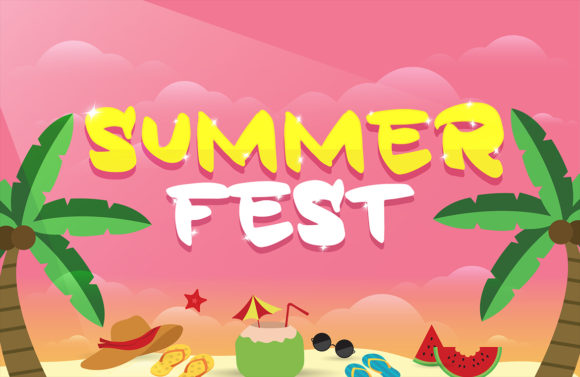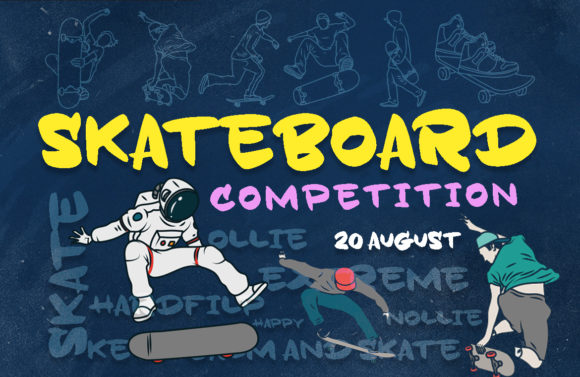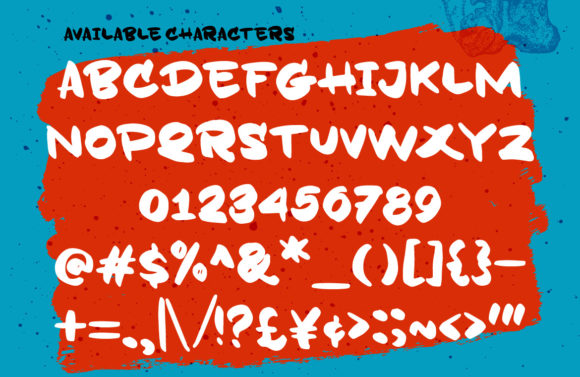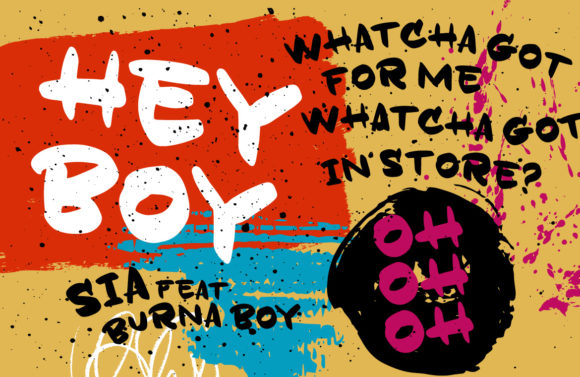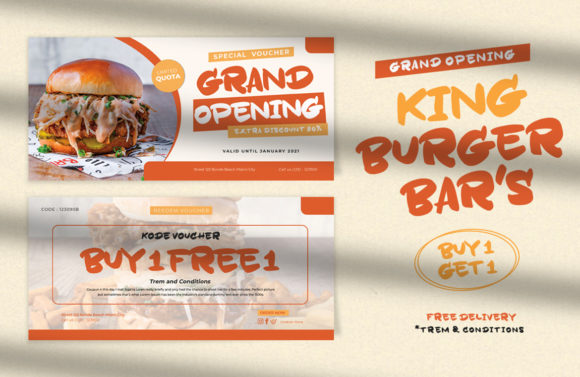
Introducing Alusion Bold Font: The Ultimate Display Font for Creative Designs
Are you tired of using the same old fonts in your designs? Do you want to add a fresh and contemporary touch to your creative projects? Look no further than Alusion Bold Font! This bouncy and quirky display font is perfect for designers and crafters who want to make their designs stand out from the crowd.
What is Alusion Bold Font?
Alusion Bold Font is a unique and eye-catching display font that is designed to add a playful and modern twist to your designs. Its bouncy and quirky style makes it perfect for use in a variety of creative projects, from posters and flyers to social media graphics and website headers.
Key Features of Alusion Bold Font
- Bouncy and Quirky Style: Alusion Bold Font has a fun and playful style that is sure to grab attention.
- Fresh and Contemporary Look: This font has a modern and trendy feel that will add a fresh touch to your designs.
- Highly Versatile: Alusion Bold Font can be used in a variety of creative projects, from print to digital media.
- Easily Readable: Despite its bold and playful style, Alusion Bold Font is still highly readable, making it perfect for use in headlines and titles.
Design Ideas Using Alusion Bold Font
Alusion Bold Font is a versatile font that can be used in a wide range of creative projects. Here are a few design ideas to get you started:
- Posters and Flyers: Use Alusion Bold Font to create eye-catching posters and flyers for events, promotions, and products.
- Social Media Graphics: Add a pop of personality to your social media graphics with Alusion Bold Font.
- Website Headers: Use Alusion Bold Font to create bold and eye-catching website headers that grab attention.
- Logos and Branding: Alusion Bold Font can be used to create unique and memorable logos and branding materials.
Tips and Tricks for Using Alusion Bold Font
Here are a few tips and tricks to help you get the most out of Alusion Bold Font:
- Use it sparingly: Alusion Bold Font is a bold and attention-grabbing font, so use it sparingly to avoid overwhelming your design.
- Experiment with colors: Try out different colors and color combinations to find the perfect look for your design.
- Pair it with other fonts: Alusion Bold Font pairs well with a variety of other fonts, so experiment with different combinations to find the perfect look.
Alusion Bold Font is a unique and versatile display font that is perfect for designers and crafters who want to add a fresh and contemporary touch to their creative projects. With its bouncy and quirky style, highly readable design, and ease of use, Alusion Bold Font is sure to become a go-to font in your design arsenal. So why wait? Download Alusion Bold Font today and start creating stunning designs that stand out from the crowd!